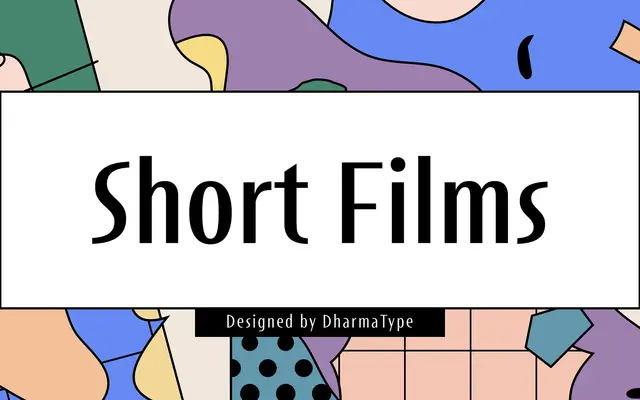
Short Films specimen from Dharma Type
An Art Deco-influenced display family with open counters, rounded bowls and high stroke contrast, available in six weights with matching italics.
Draws on Art Deco geometry while softening it with rounded bowls and wide-open counters, producing a rhythm the foundry describes as simultaneously pop and elegant. Six weights from Thin to Black each carry matching italics, giving the family range across titles, logos and body text. Latin coverage extends to Western, Central and South-Eastern European scripts alongside basic Cyrillic.
Art Deco-inspired with geometric construction, open counters, rounded bowls and stroke contrast. Decorative enough for display but positioned as readable for body text, placing it firmly in the display category with art deco subcategory.